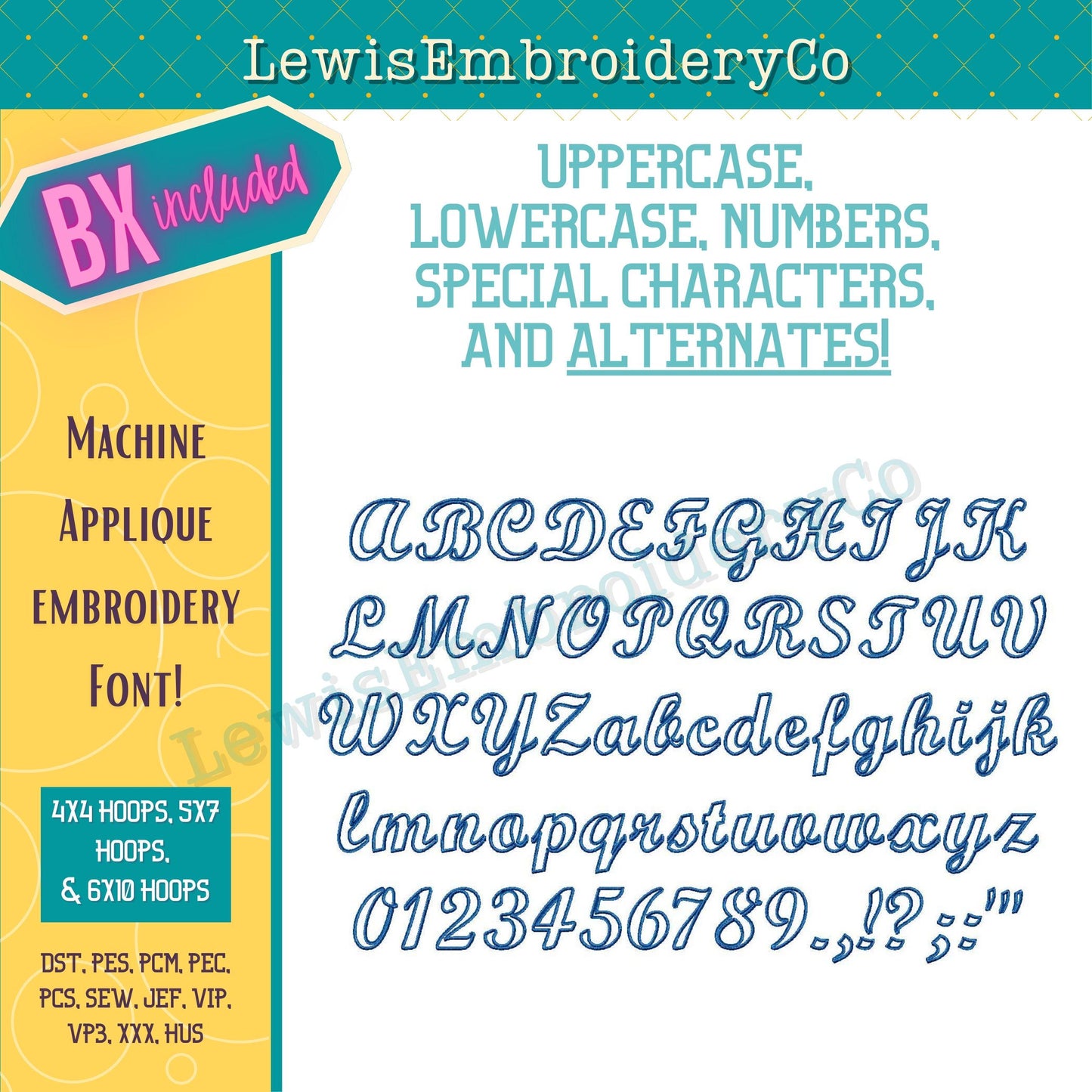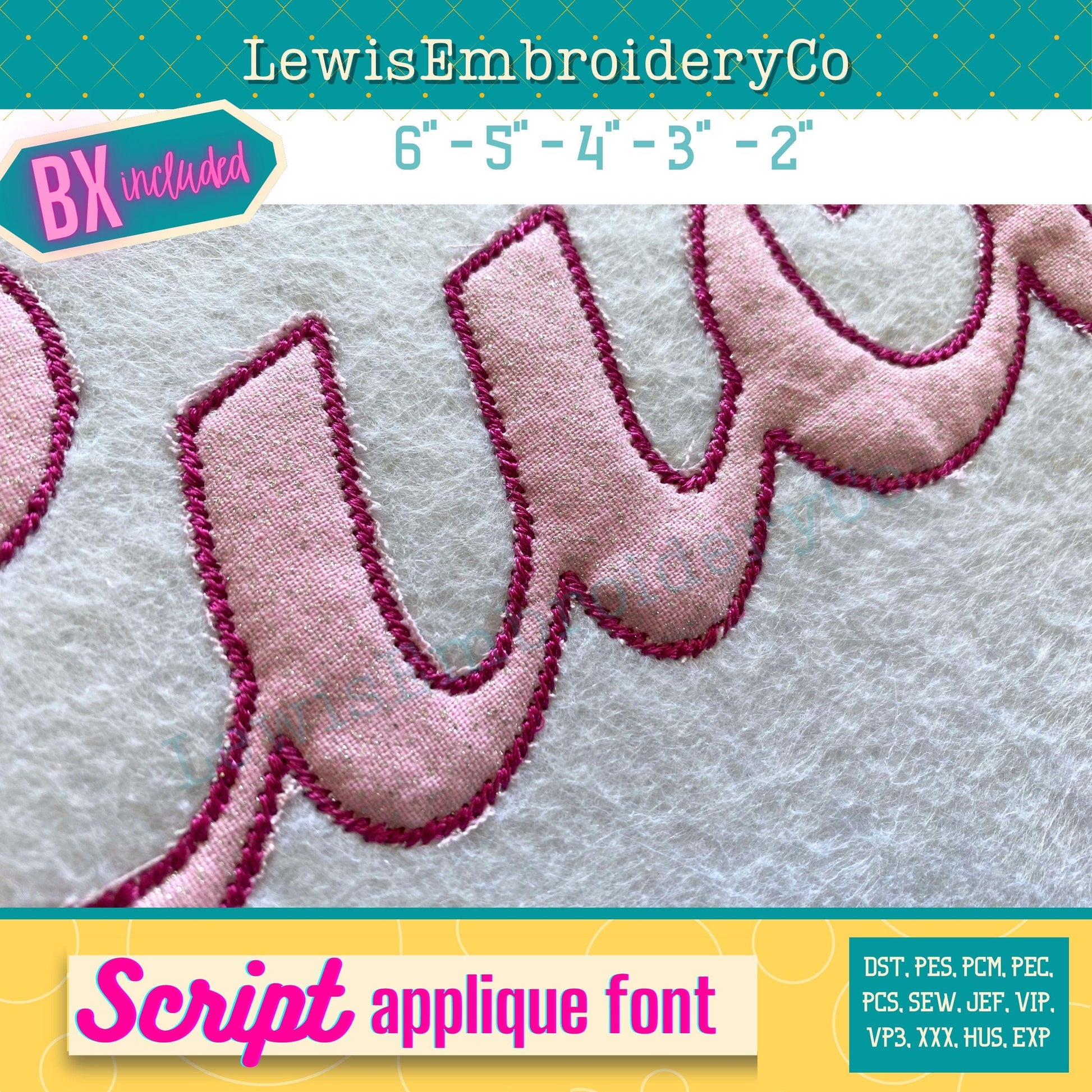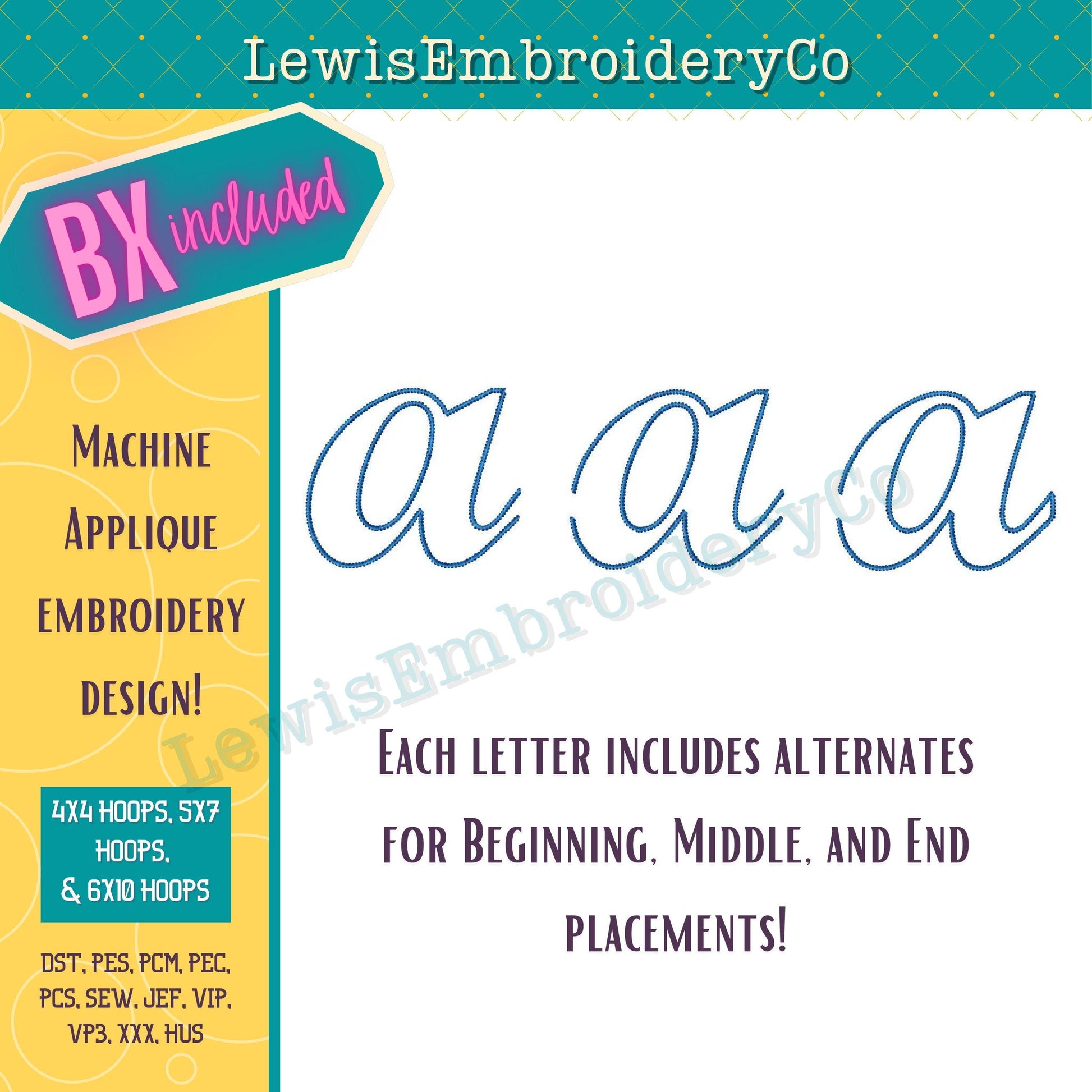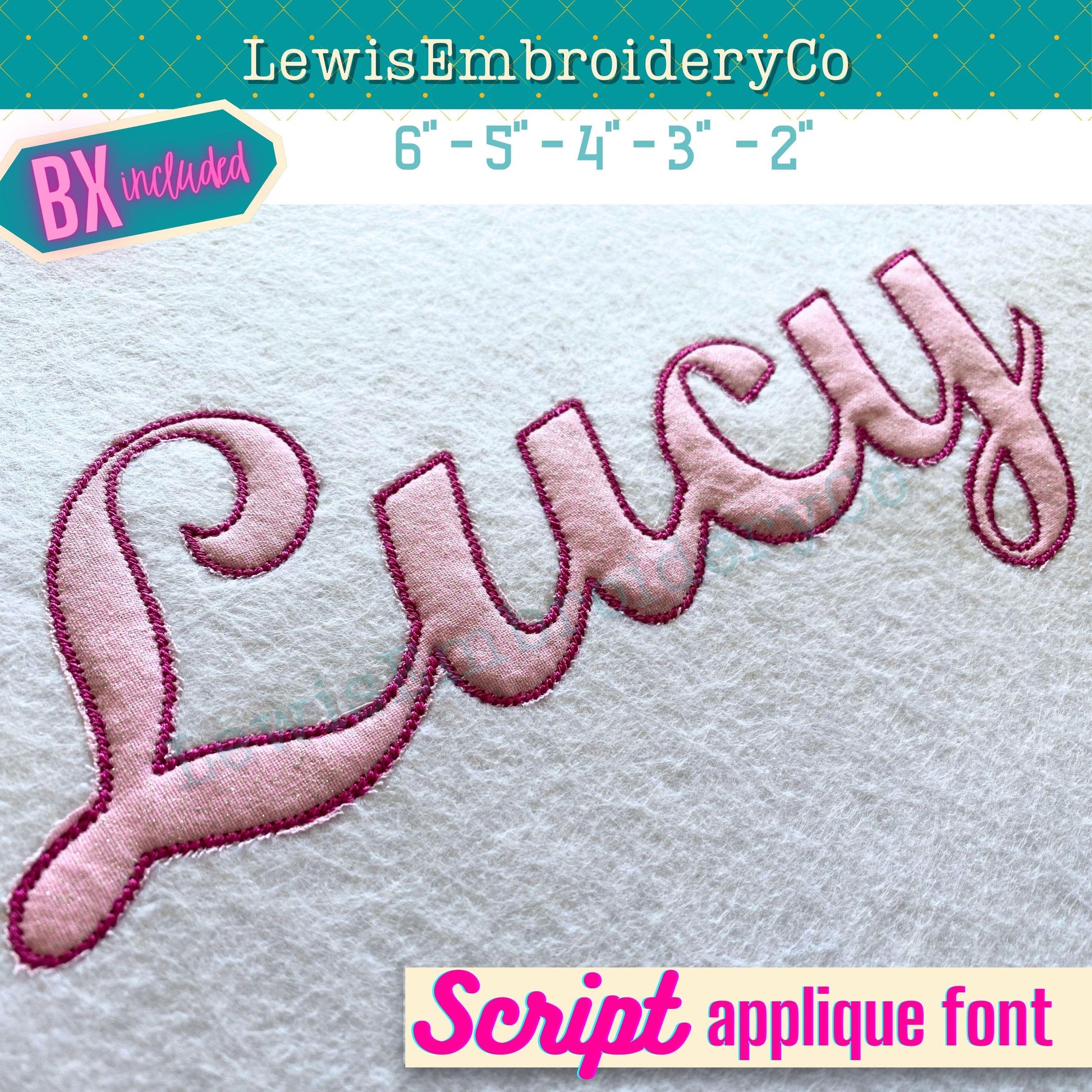
Narrow Applique, Script, Machine Embroidery Font - With BX - (PDF Tutorial Included)
Script Applique Embroidery Font - Cursive Applique Font - Stem Stitch Applique Embroidery Font - BX Font - Cursive Machine Embroidery Font
This fun font will add a nice touch to any of your projects!